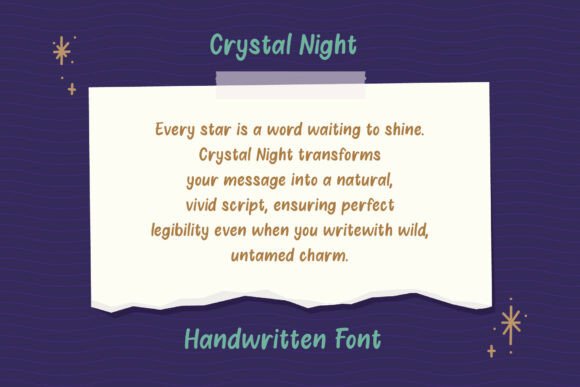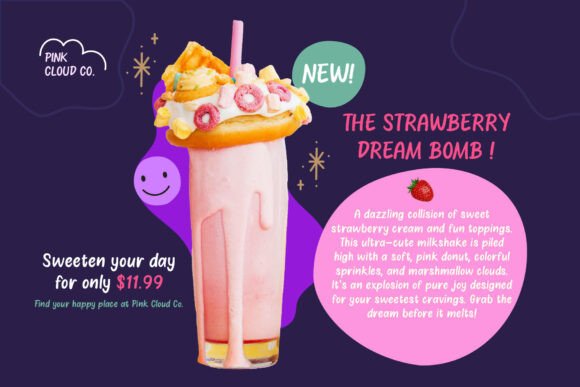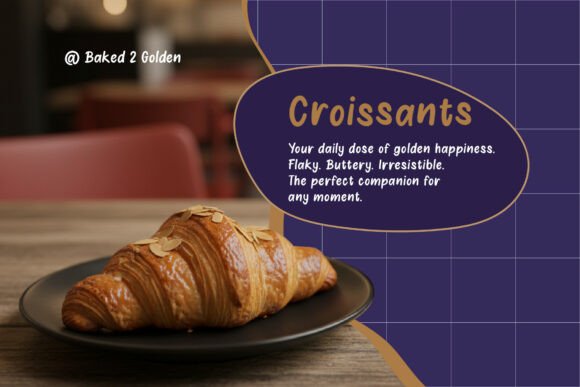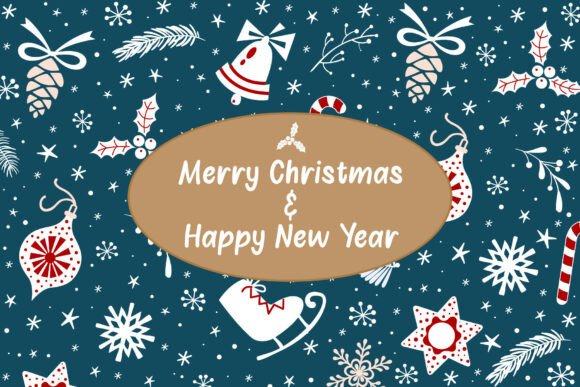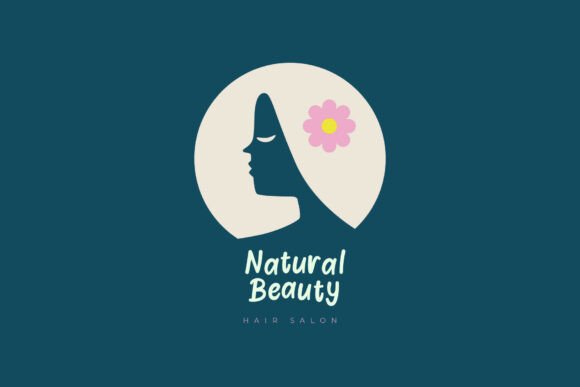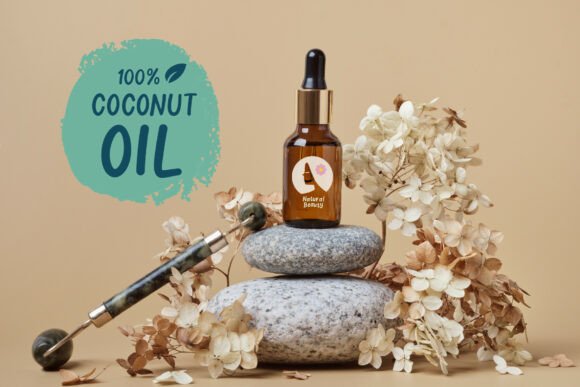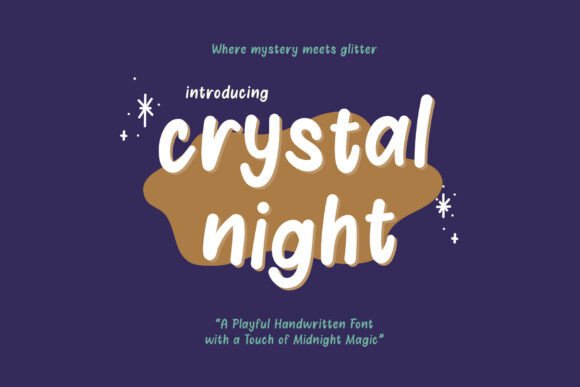
Unveiling Crystal Night Font: Enchanting Handwritten Elegance
Welcome to the mesmerizing world of Crystal Night Font, a captivating handwritten typeface that masterfully blends mystery with a touch of sparkle. This enchanting font is designed to breathe life into your texts, logos, and designs, imbuing them with a subtle allure that exudes lively warmth and a dash of fantastical charm. Whether you’re a seasoned designer or a courageous creative, Crystal Night is poised to become your go-to font for adding that magical touch to your work.
The Essence of Crystal Night
Crystal Night Font is more than just a collection of characters; it’s an experience. Each letter is meticulously crafted with smooth curves and a seamless flow, ensuring not only aesthetic appeal but also excellent readability. This harmonious balance makes Crystal Night an ideal choice for a wide range of design projects, from elegant logos and poignant quotes to captivating invitation cards, innovative packaging, engaging social media posts, and heartfelt greetings.
Applications of Crystal Night Font
The versatility of Crystal Night Font is one of its most compelling attributes. Here are a few ways you can leverage this enchanting typeface:
- Logos: Elevate your brand identity with a logo that shines. Crystal Night’s unique charm can help your brand stand out in a crowded marketplace.
- Quotes: Add a touch of elegance and emotion to your inspirational quotes, making them more impactful and shareable.
- Invitation Cards: Make your invitations unforgettable with a font that whispers luxury and exclusivity.
- Packaging: Stand out on the shelves with packaging that combines functionality with the magical allure of Crystal Night.
- Social Media Posts: Engage your audience with posts that not only convey your message but also enchant your followers.
- Greetings: Whether it’s a birthday, wedding, or holiday greeting, Crystal Night adds that special something to your messages.
Why Choose Crystal Night?
In a world where design trends are constantly evolving, Crystal Night Font offers a timeless elegance that can adapt to various styles and themes. Its distinctive characteristics include:
- Unique Enchantment: A subtle yet captivating allure that differentiates your designs.
- Readability: Smoothly crafted to ensure your message is conveyed clearly and effectively.
- Versatility: Suitable for a myriad of design projects, offering flexibility and creativity.
- Emotional Connection: Creates a deeper connection with your audience through its whimsical and inviting feel.
Crafting with Crystal Night
For designers and crafters, Crystal Night Font is more than a tool; it’s a partner in your creative journey. It invites you to explore new dimensions of design, where elegance meets playfulness, and sophistication blends with charm. Whether you’re crafting something for personal use or working on a client’s project, Crystal Night ensures your work is not just seen but felt.
Crystal Night Font stands as a beacon for creatives seeking to infuse their designs with a touch of magic and mystery. With its enchanting elegance, readability, and versatility, it’s poised to become an indispensable part of your design arsenal. So, unleash your creativity, and let Crystal Night guide you into a world where design knows no bounds, and every project is a masterpiece waiting to happen.
Discover the twilight enchantment of Crystal Night Font today and transform your designs into captivating stories that resonate with your audience.